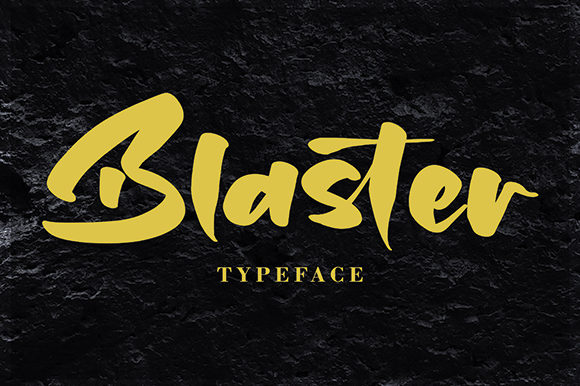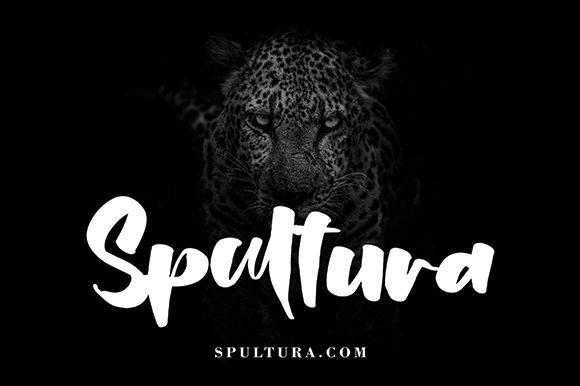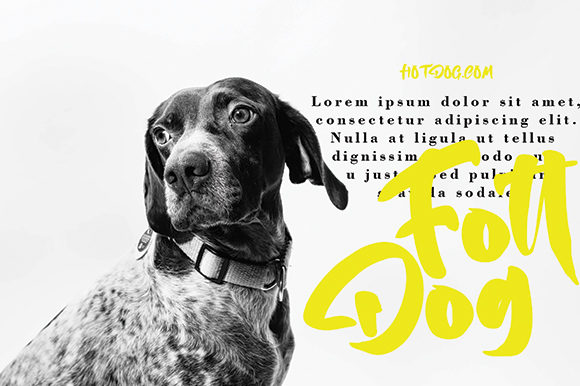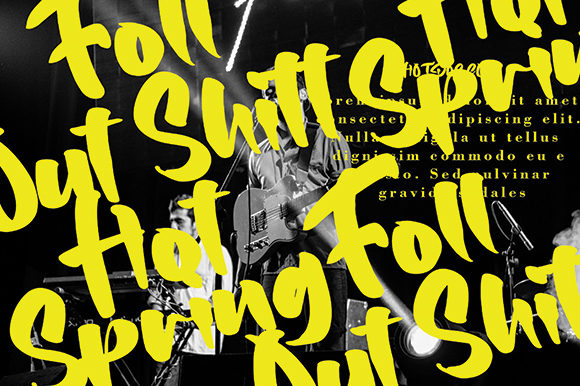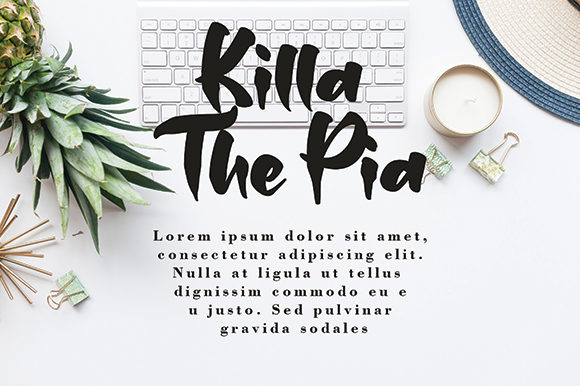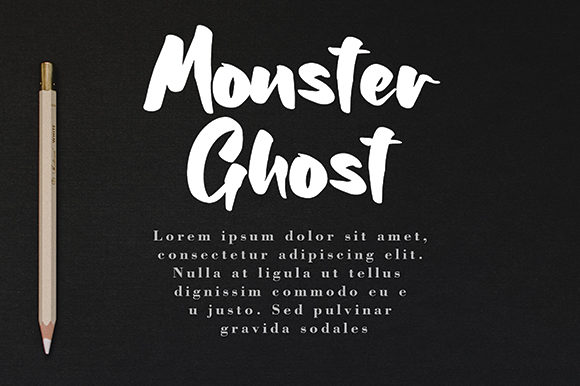
Blaster Font
About Blaster Font
Blaster is a bold handwritten font, carefully handcrafted to become a true favorite. Get inspired by its authentic feel and use it to create gorgeous wedding invitations, beautiful stationary art, eye-catching social media posts, and cute greeting cards.